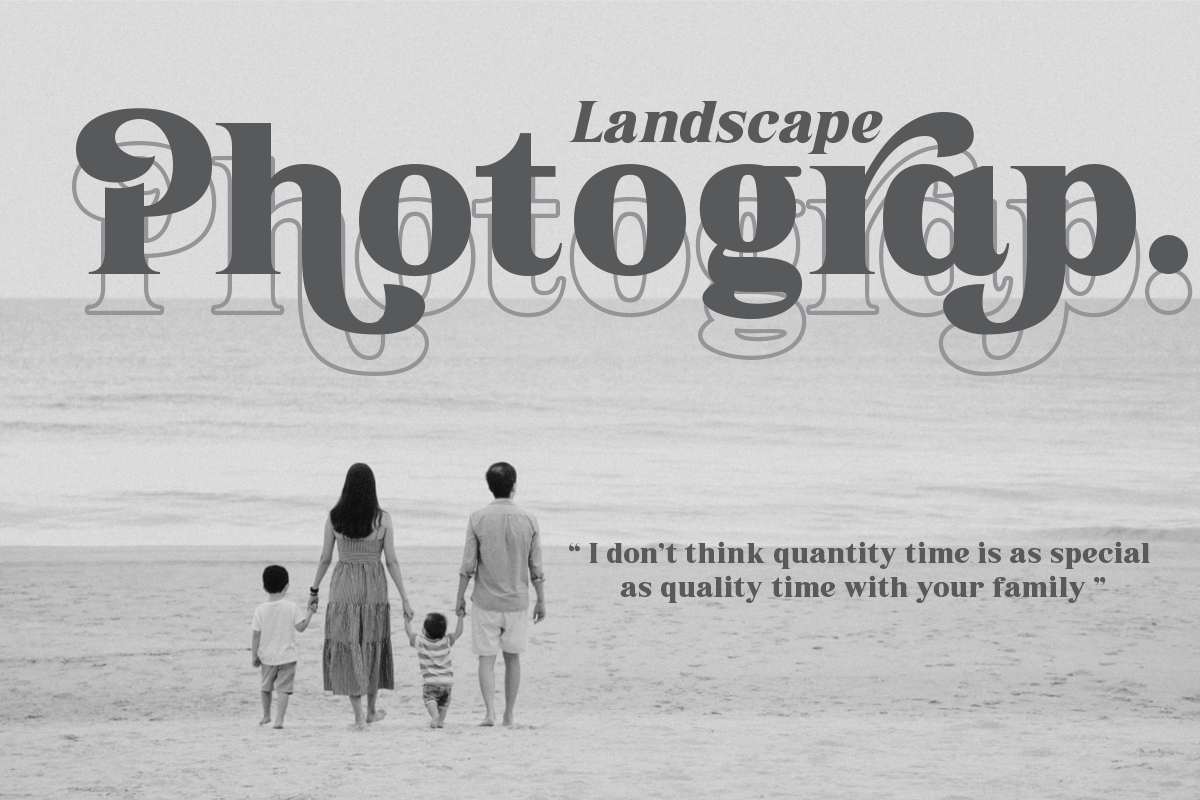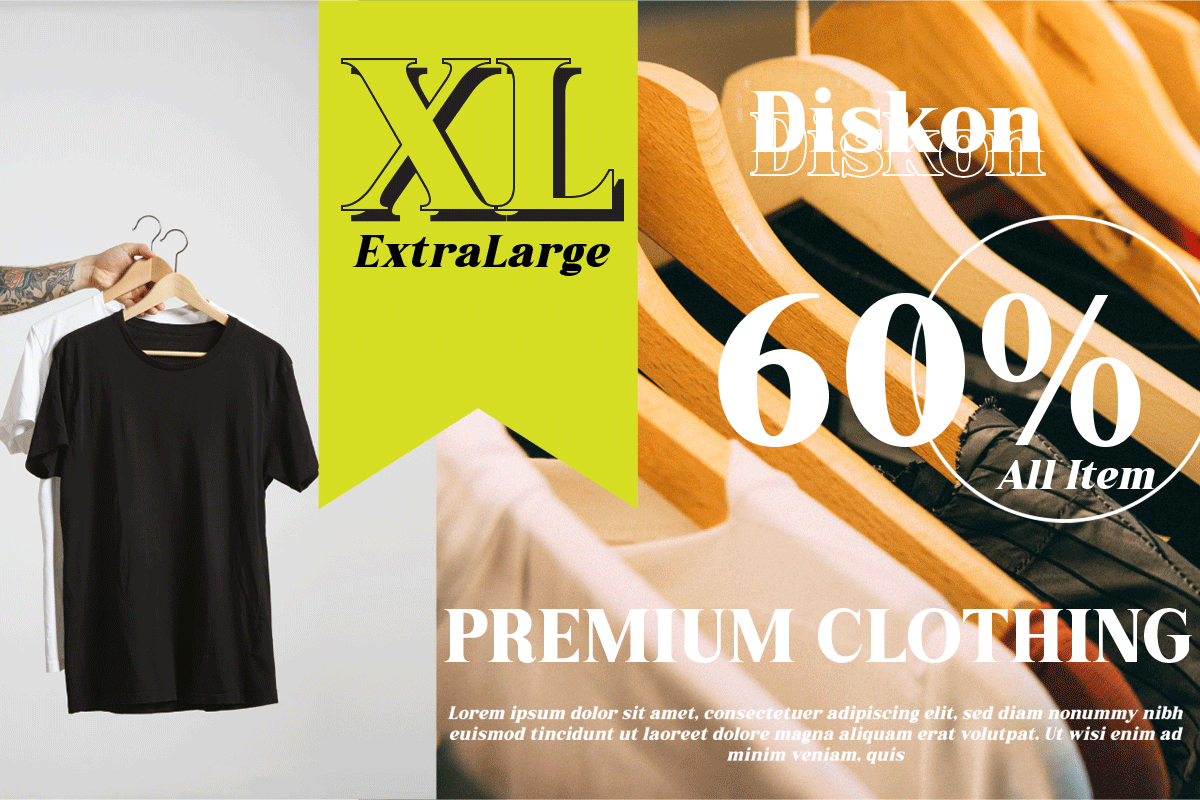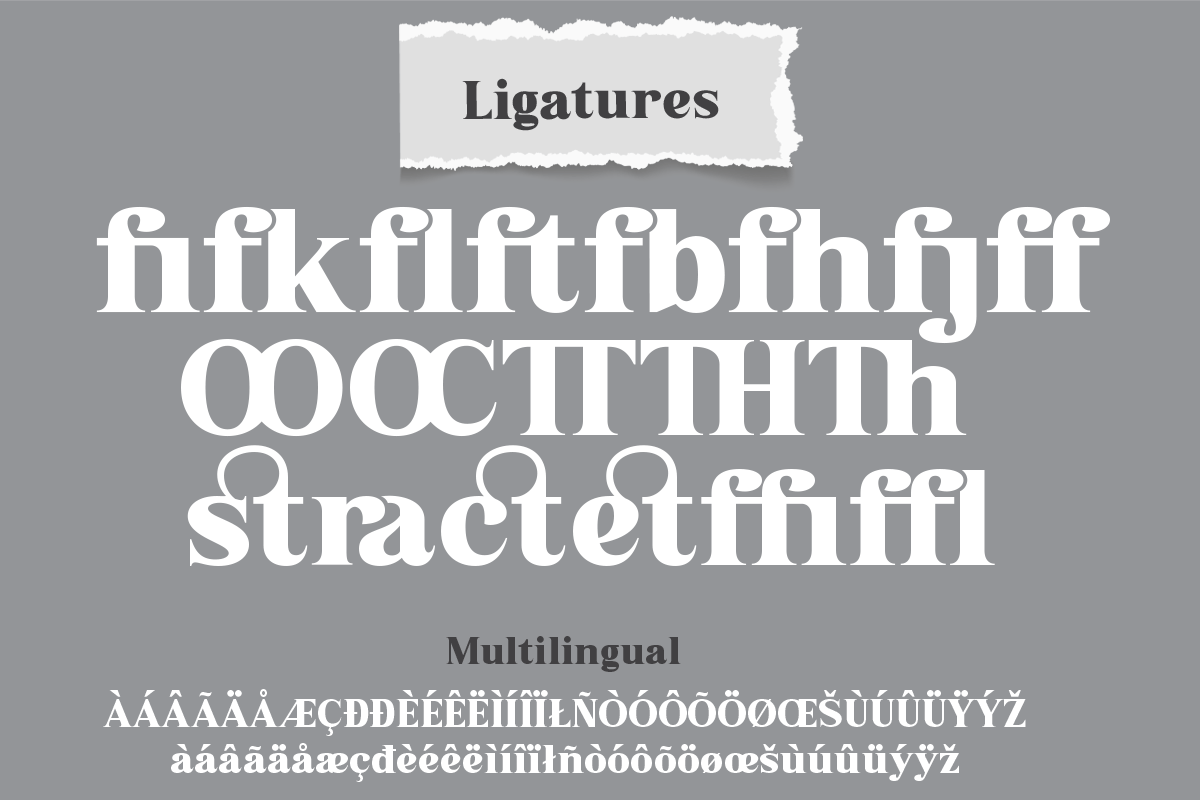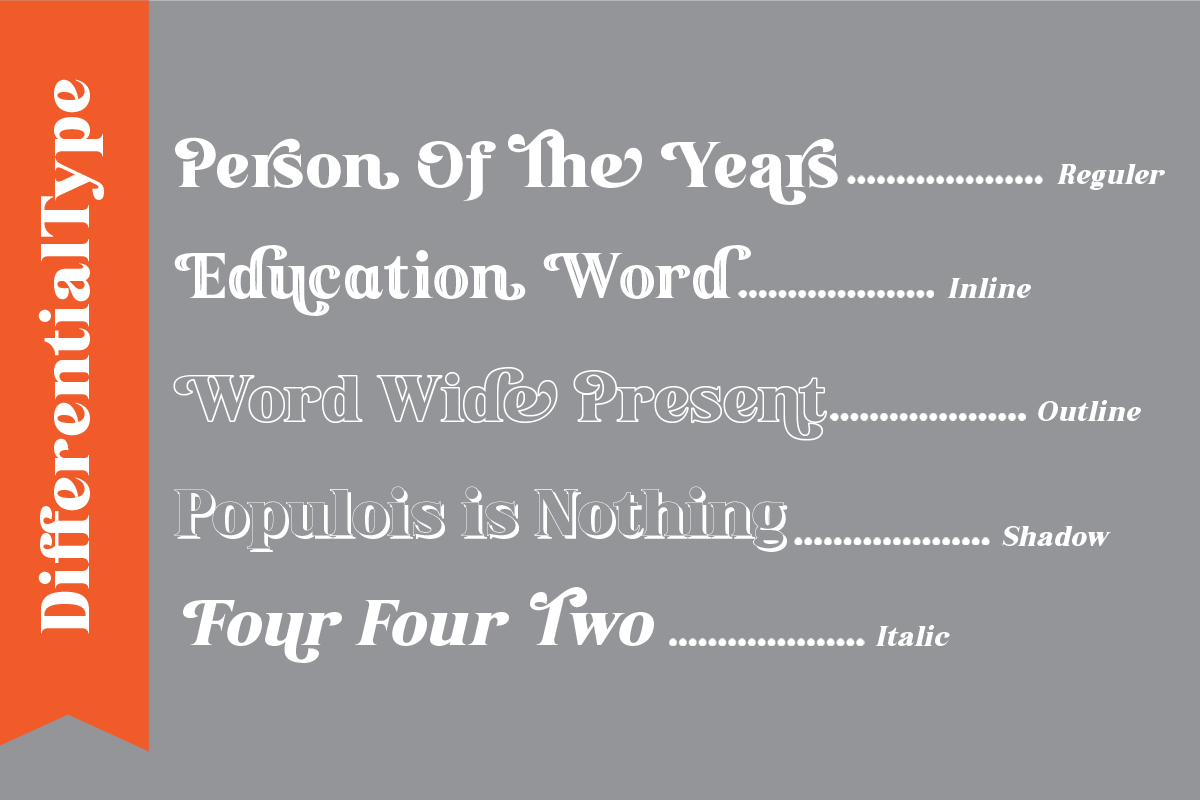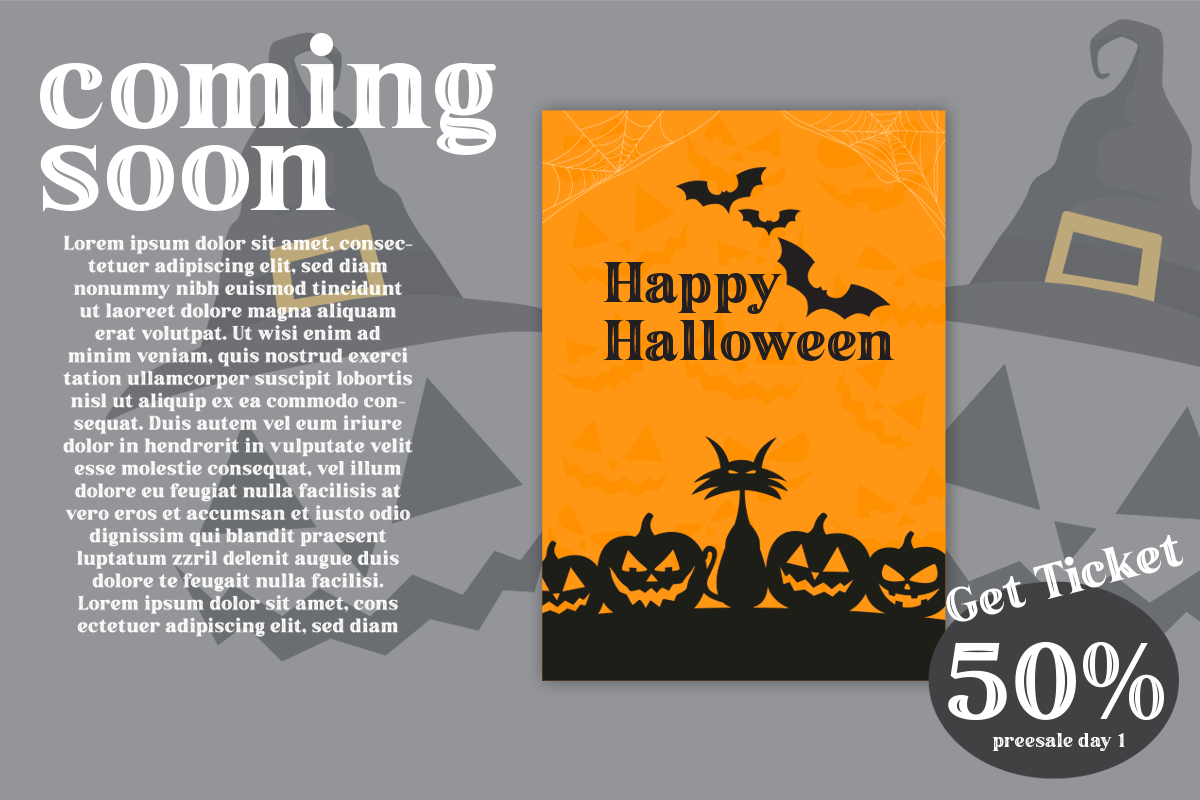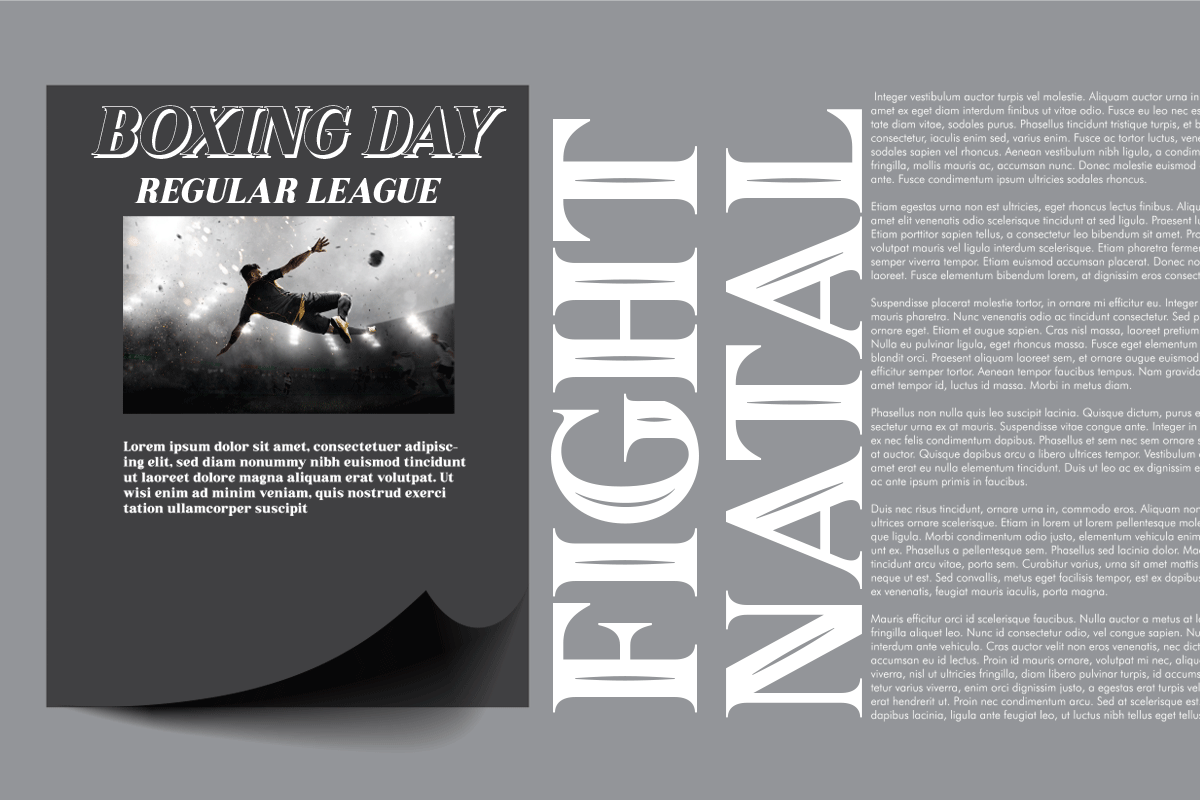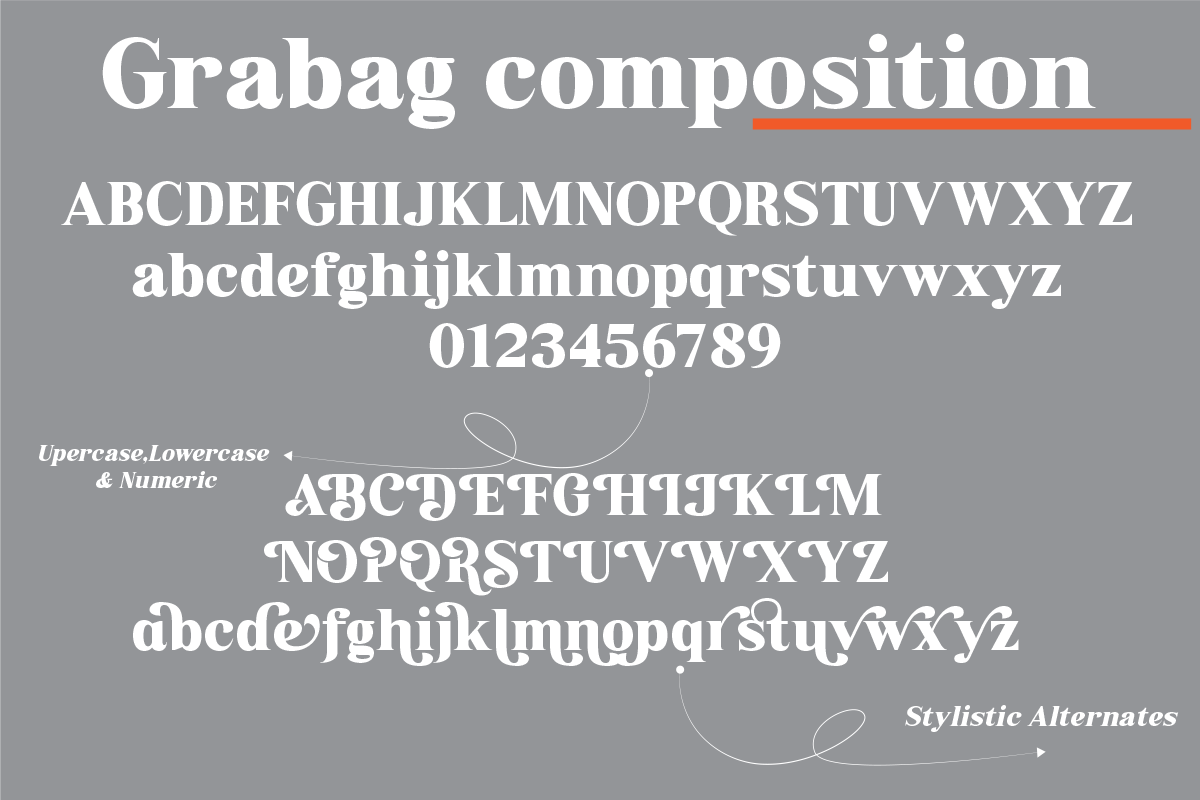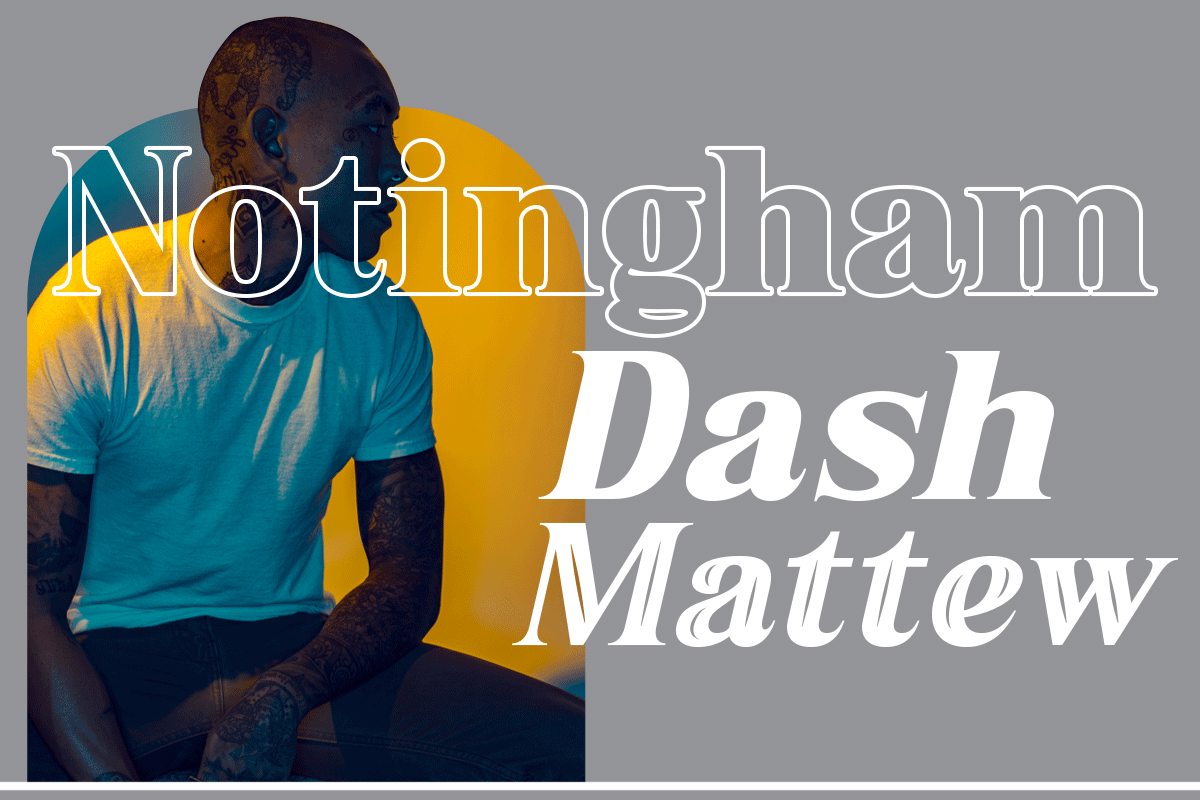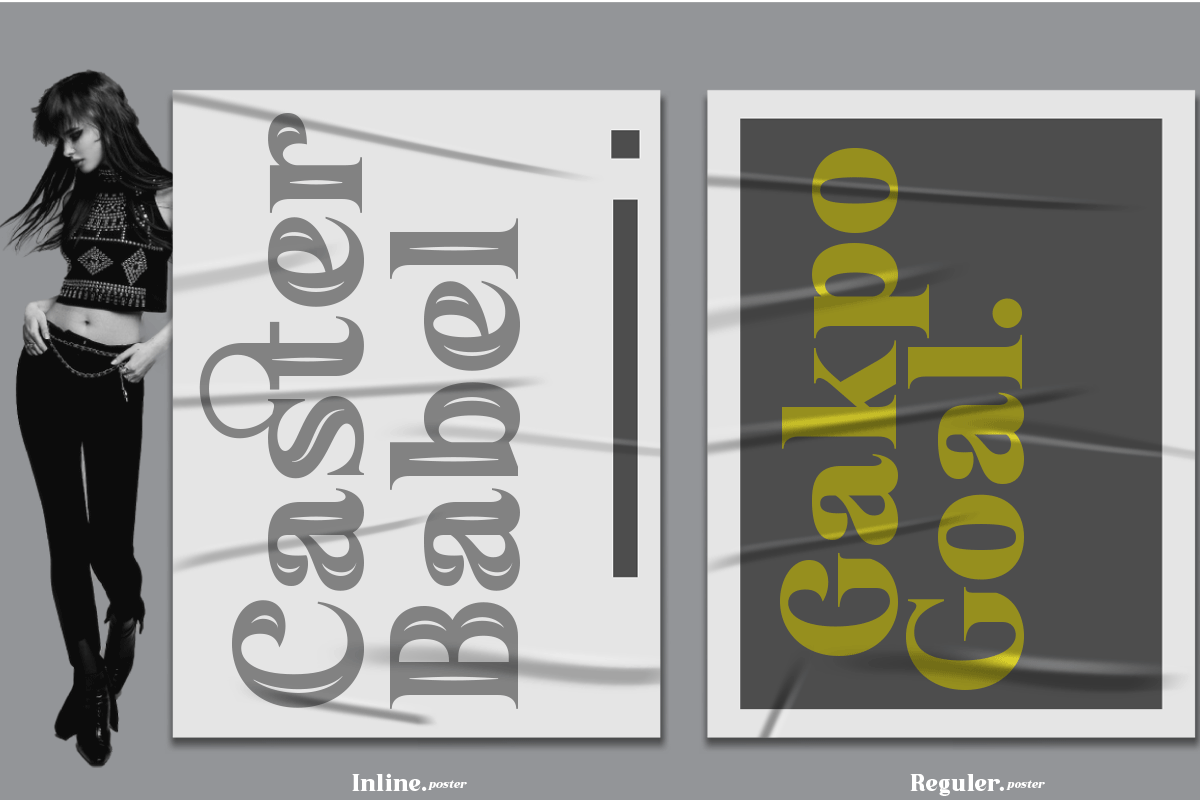
Grabag
Grabag is a bold vintage display font that comes in four styles. It will look great for headlines, branding, magazines, logos, and more. Grabag will add a masculine and firm impression to every design you wish to create.